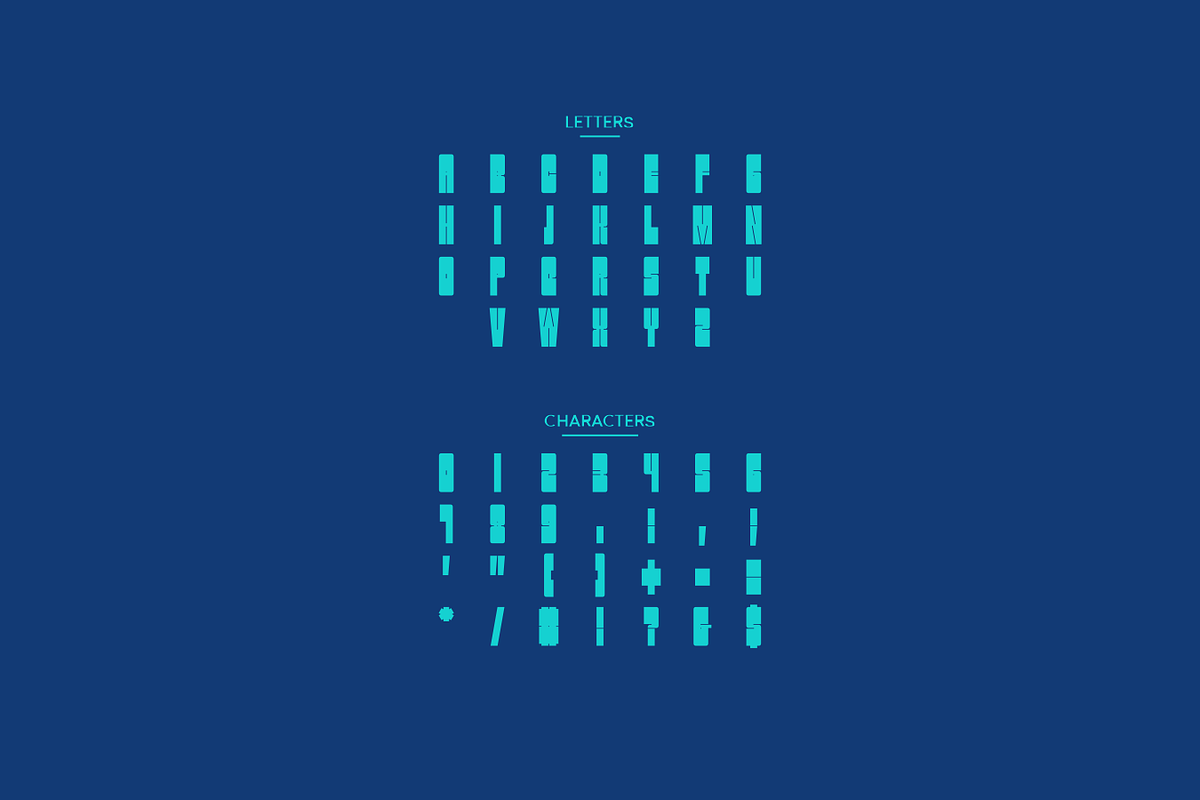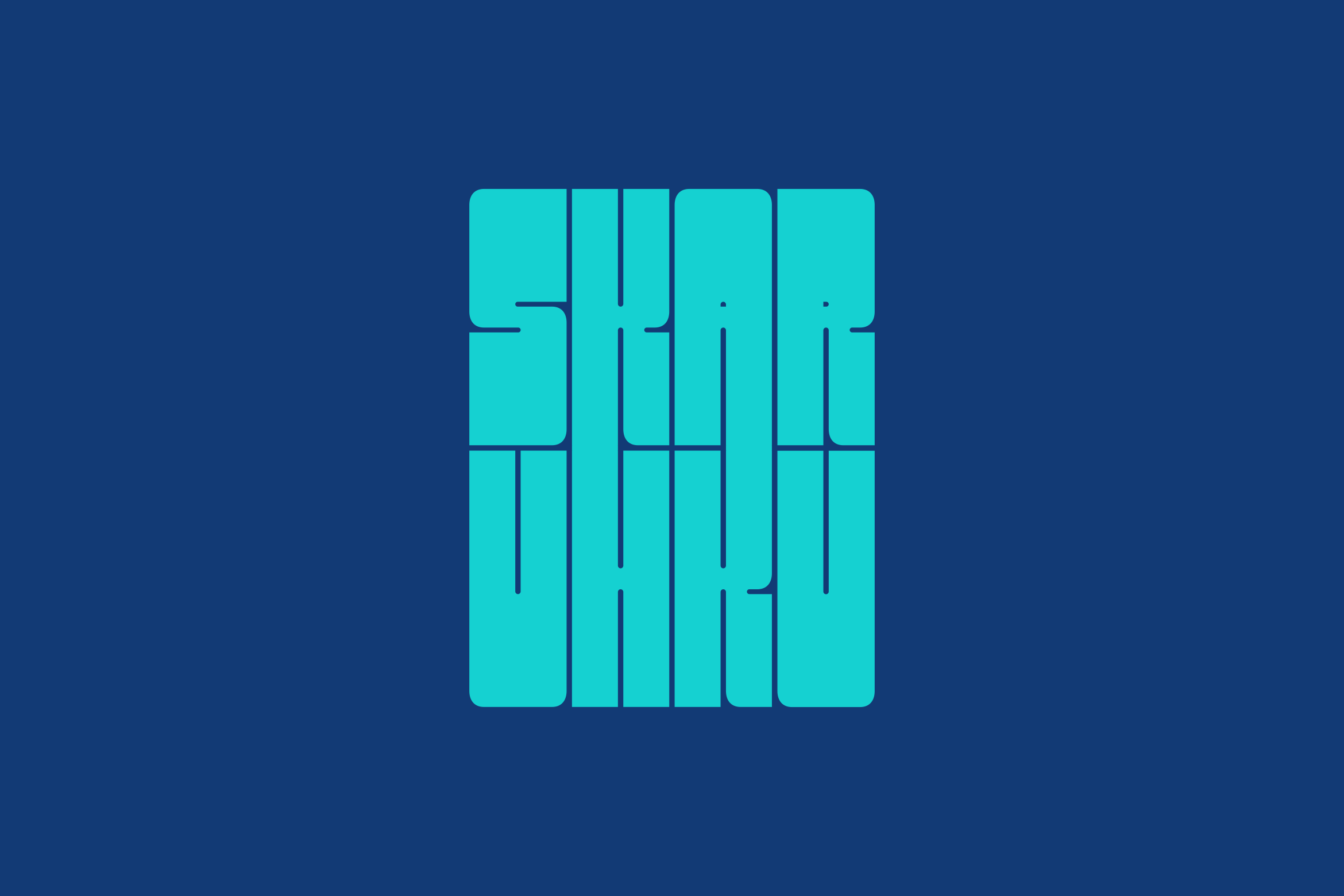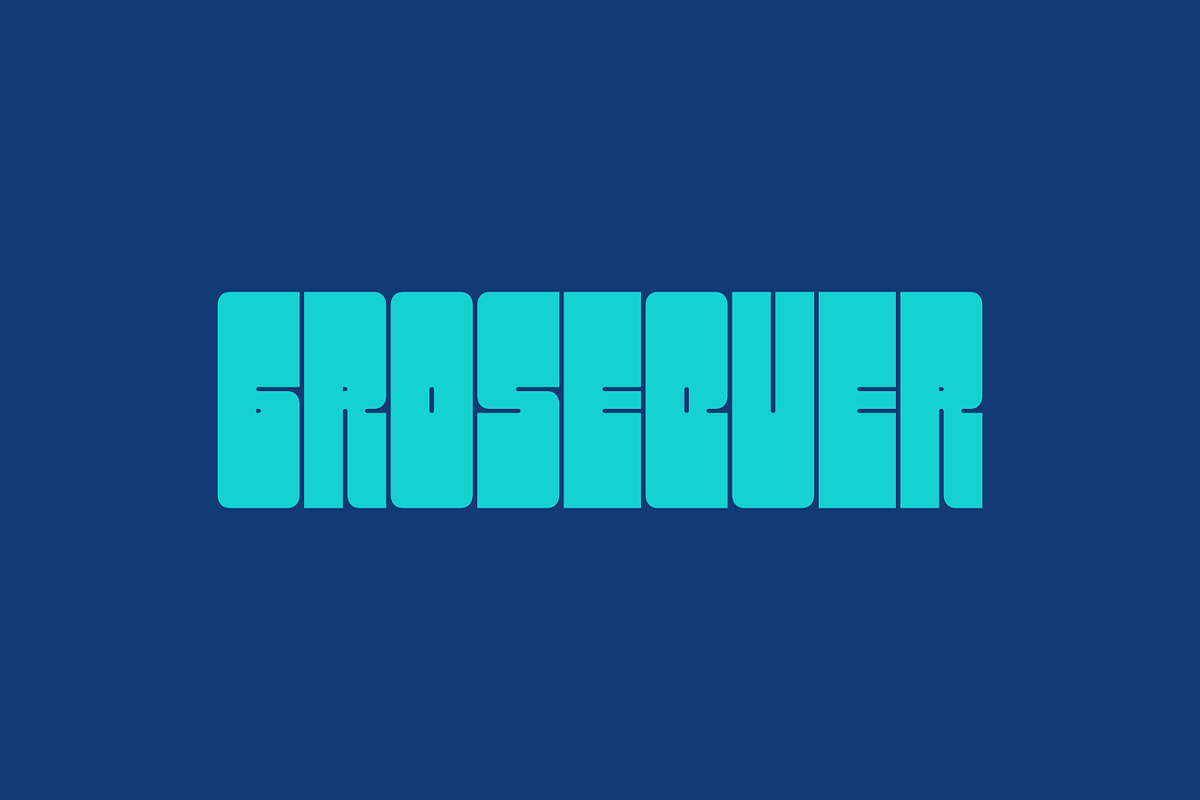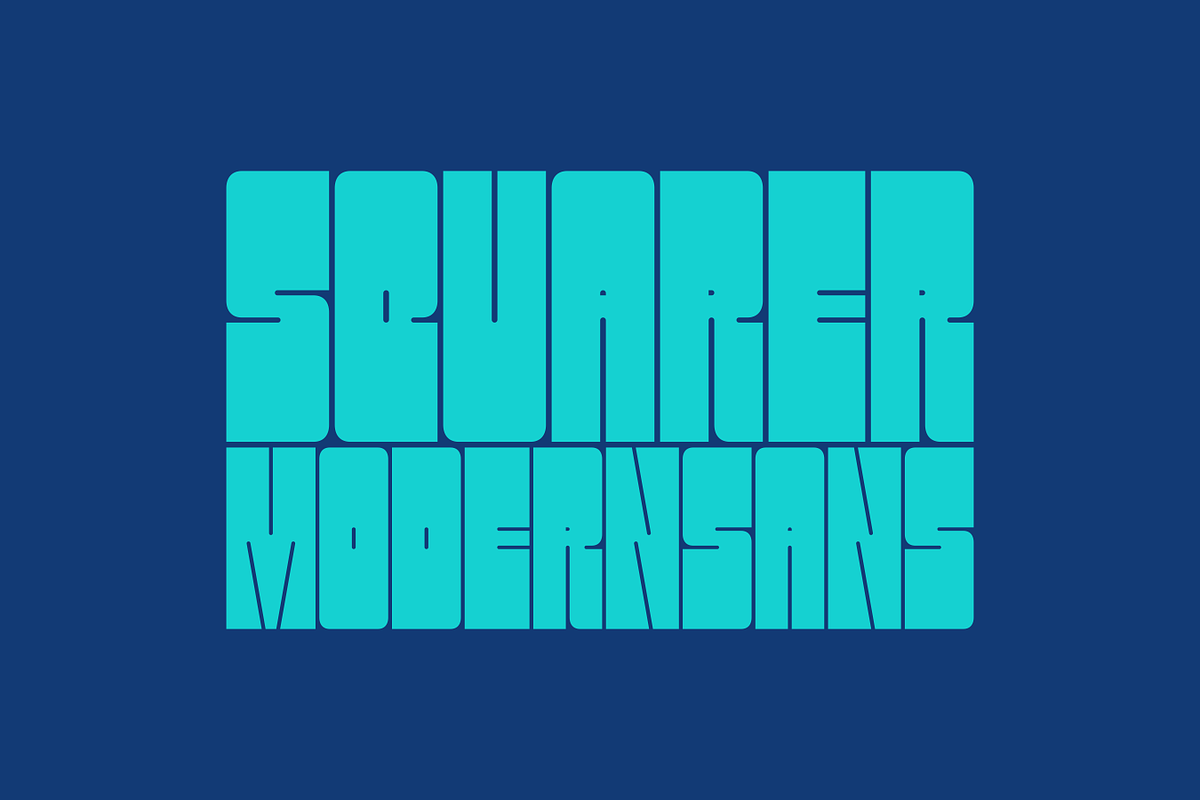
Skaruhku - Modern Condensed Typeface
Skaruhku is a thick and strong condensed font to highlight your message, this font can be an option to maximize your design. Skaruhku is suitable for branding, poster, packaging design, headline, logo, motion graphic, movie title, magazine, future promotion and urban fashion.